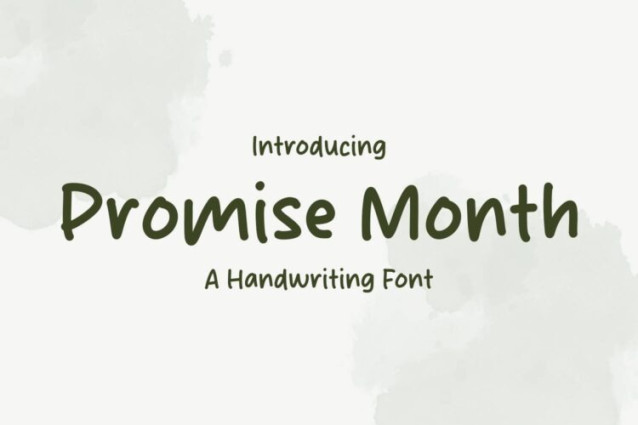
Promise Month Font
Promise Month Font is a simple and friendly handwritten font. Its natural and unique style makes it incredibly fitting to a large pool of designs. The only limit is your imagination!